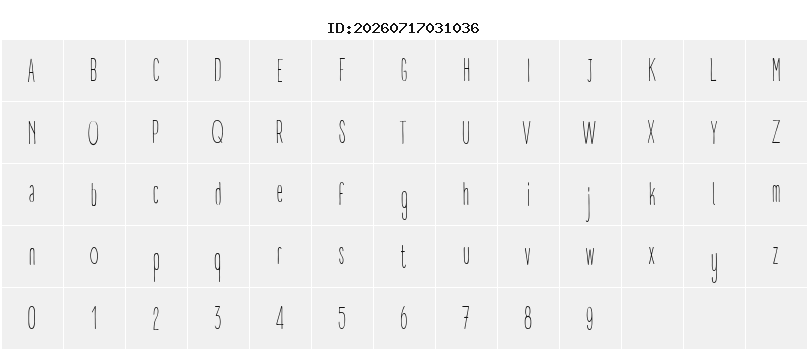
A DAY WITHOUT SUN Preview
• Font Name: A DAY WITHOUT SUN
• Designer: Cosimo Lorenzo Pancini
• Manufacturer: Studio Kmzero
About A DAY WITHOUT SUN.otf
A DAY WITHOUT SUN.otf is a modern, elegant sans-serif font designed for ultimate readability and visual harmony. Perfect for branding, headlines, web design, and print materials.